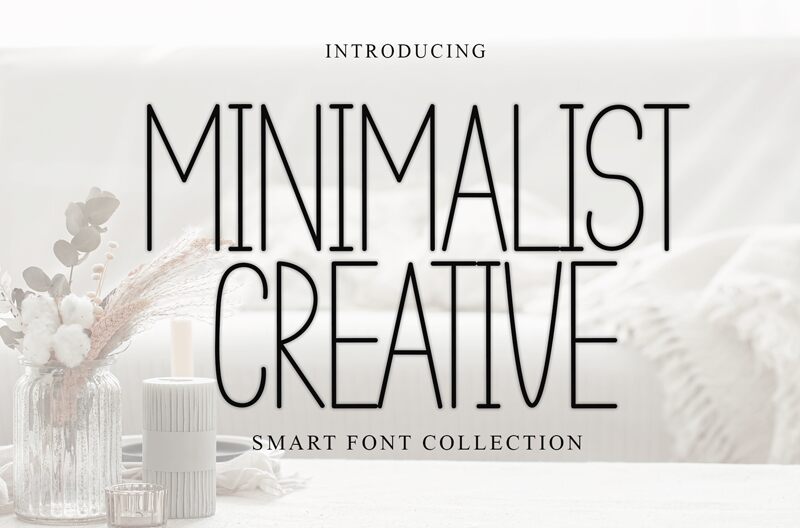
Minimalist  Creative
Minimalist Creative, a captivating handwritten font designed by Etik Fatimah, exudes a refined and effortless elegance. Its light, condensed strokes lend a sense of understated sophistication, inviting the viewer to pause and immerse themselves in its delicate, yet impactful, aesthetic. This font's unique character seamlessly blends modern minimalism with the organic flow of handcrafted calligraphy, creating a harmonious and visually striking impression.
The Minimalist Creative font's versatility makes it a compelling choice for a wide range of design applications. Its clean, streamlined appearance lends itself beautifully to branding, editorial layouts, and promotional materials, while its handwritten charm can elevate personal stationery, wedding invitations, and social media content. The font's versatility allows designers to craft visuals that strike a balance between simplicity and artistry, captivating audiences with its refined and sophisticated allure.